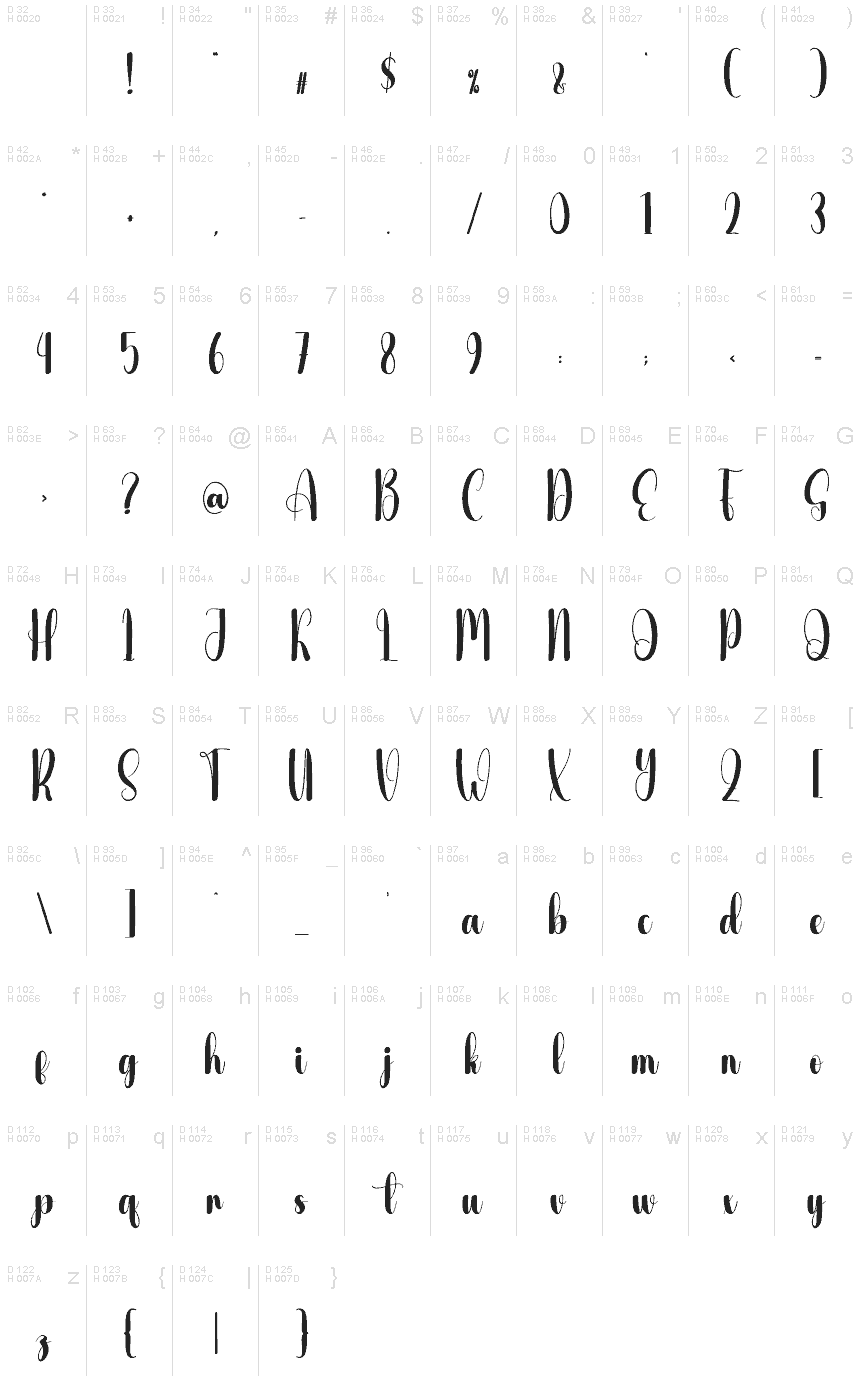
Quarry
Quarry font by Andi Moz is an elegant calligraphy font with expressive and fluid letters that reflect the beauty of timeless script style. It has a modern appeal and noticeable decorative elements which create a magical feel and fashionable look for this typeface.
Use this free calligraphy font to add beauty to website banners, social media posts, headers, titles, invitations for birthdays or weddings, stationery projects, greeting cards, logos of beauty products or fashion brands, T-shirt designs, apparel branding names or even jewelry labels.